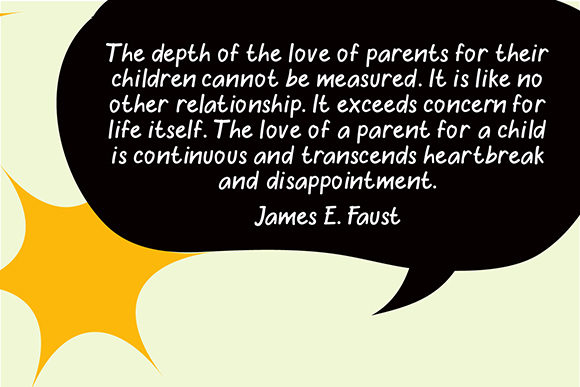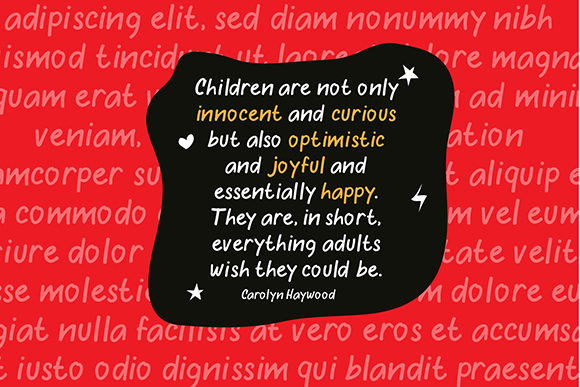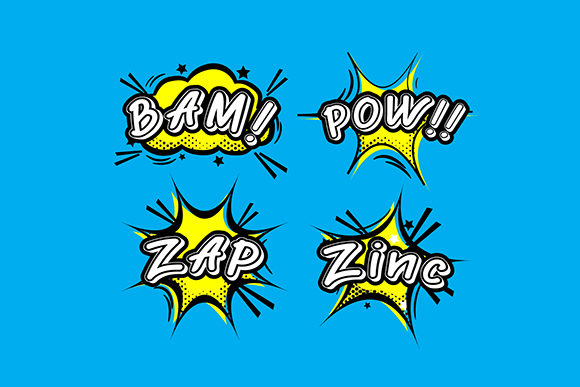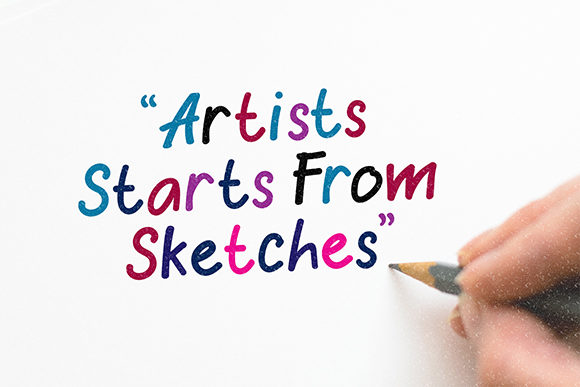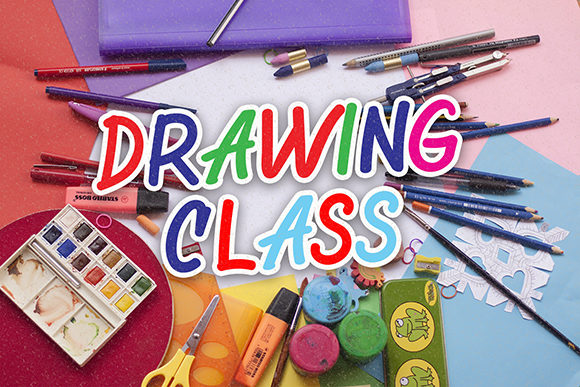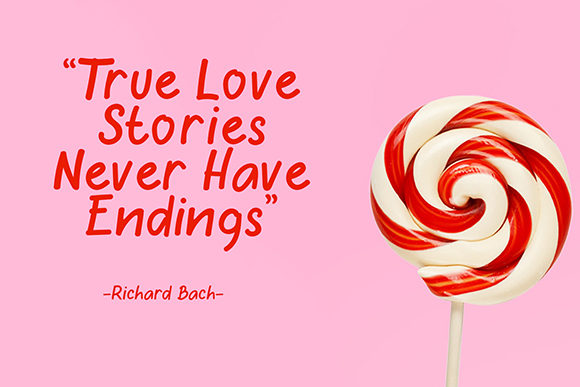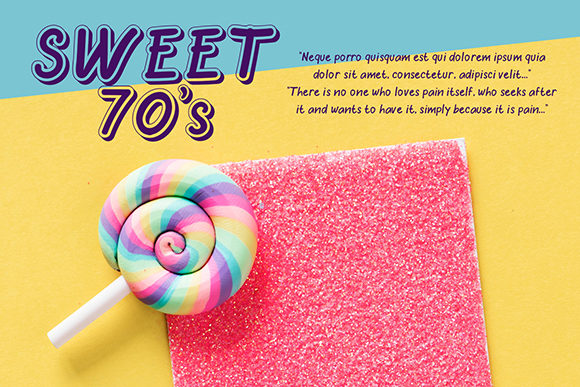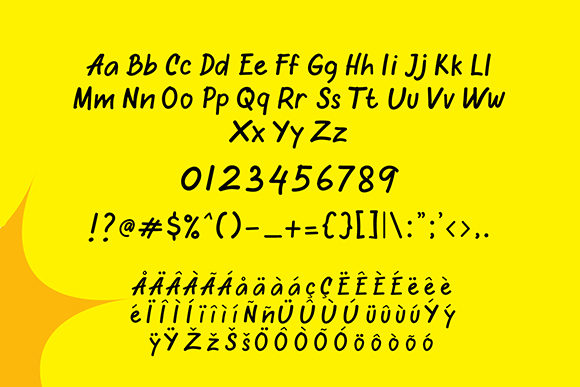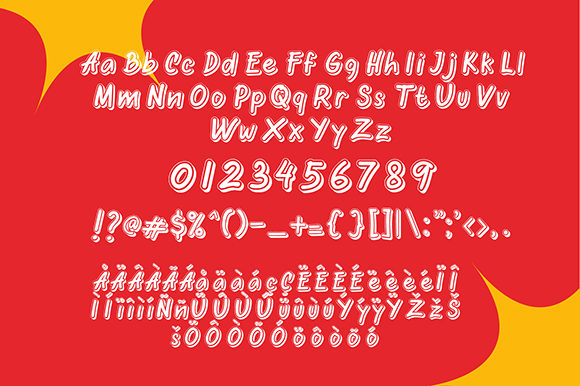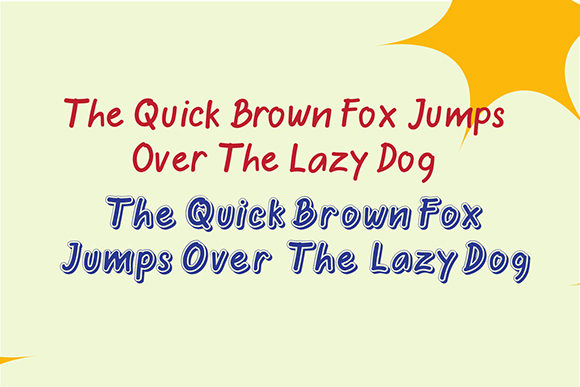
Oretans Font
About Oretans Font
The Oretans is a straightforward handwritten typeface. It has a striking, yet simple and childish look, which is equipped with a 3D style.